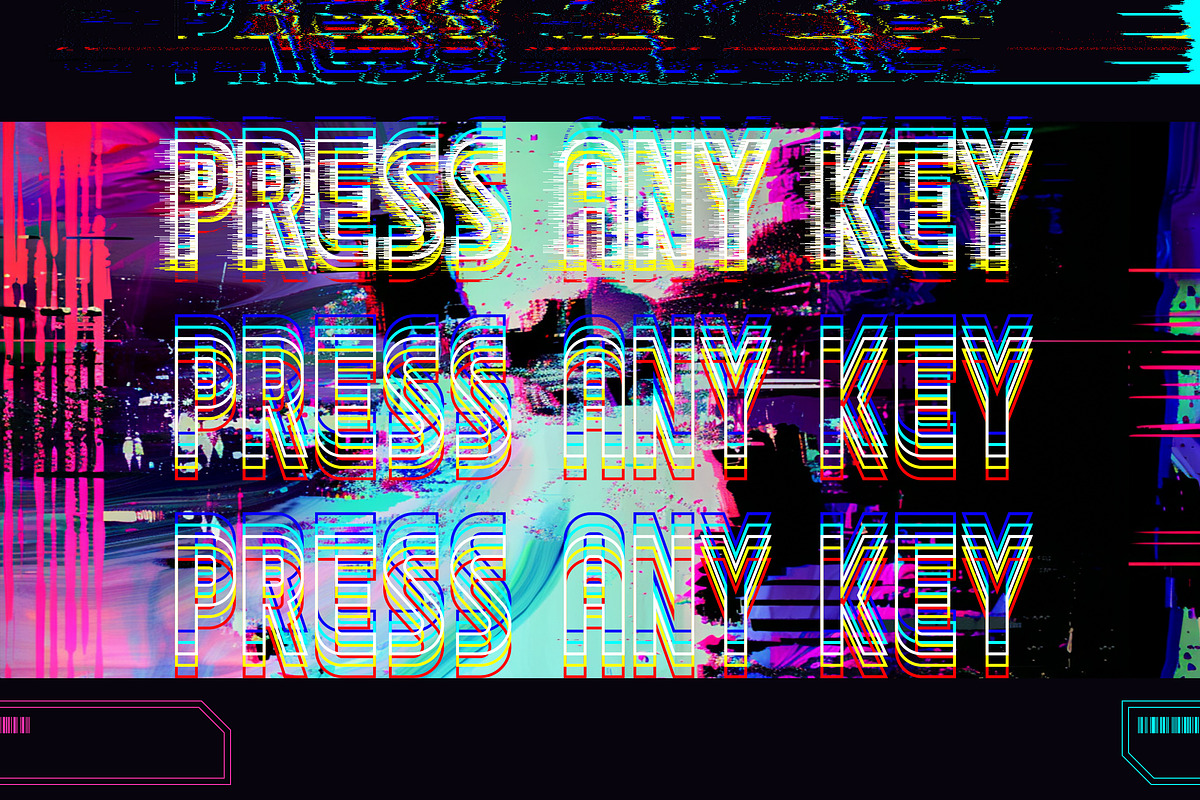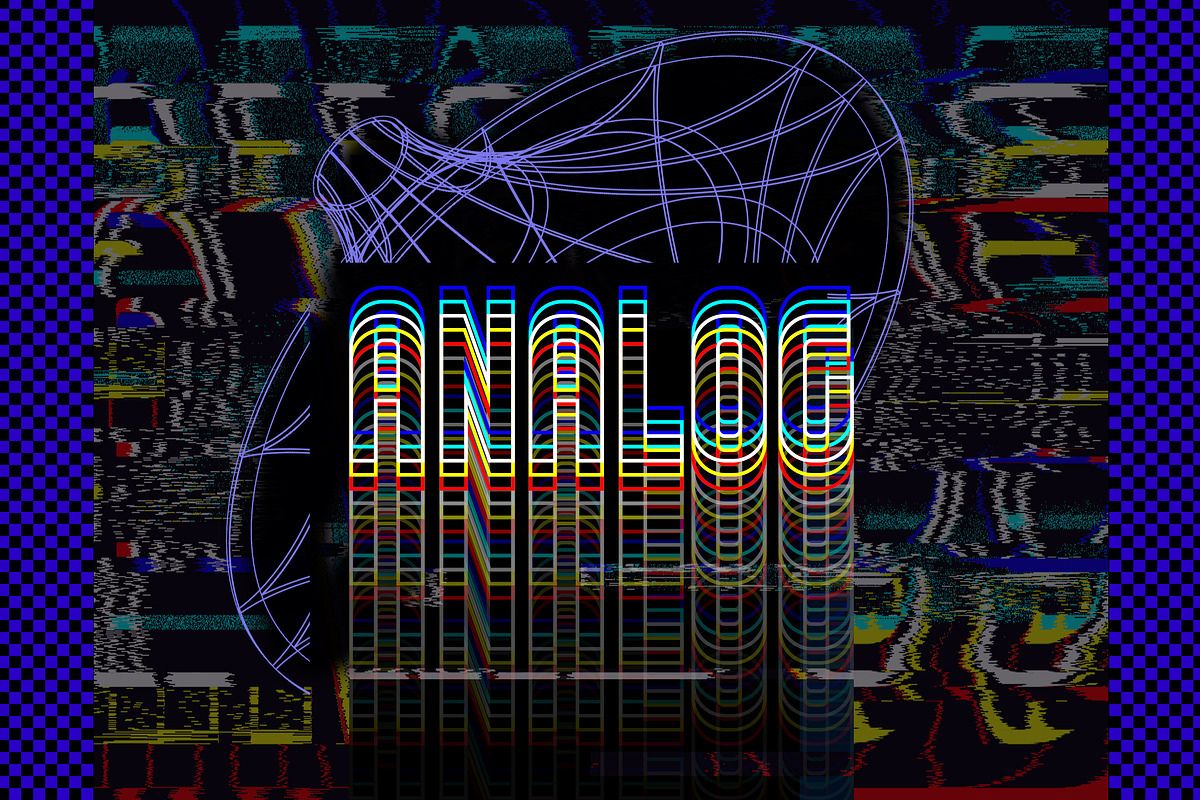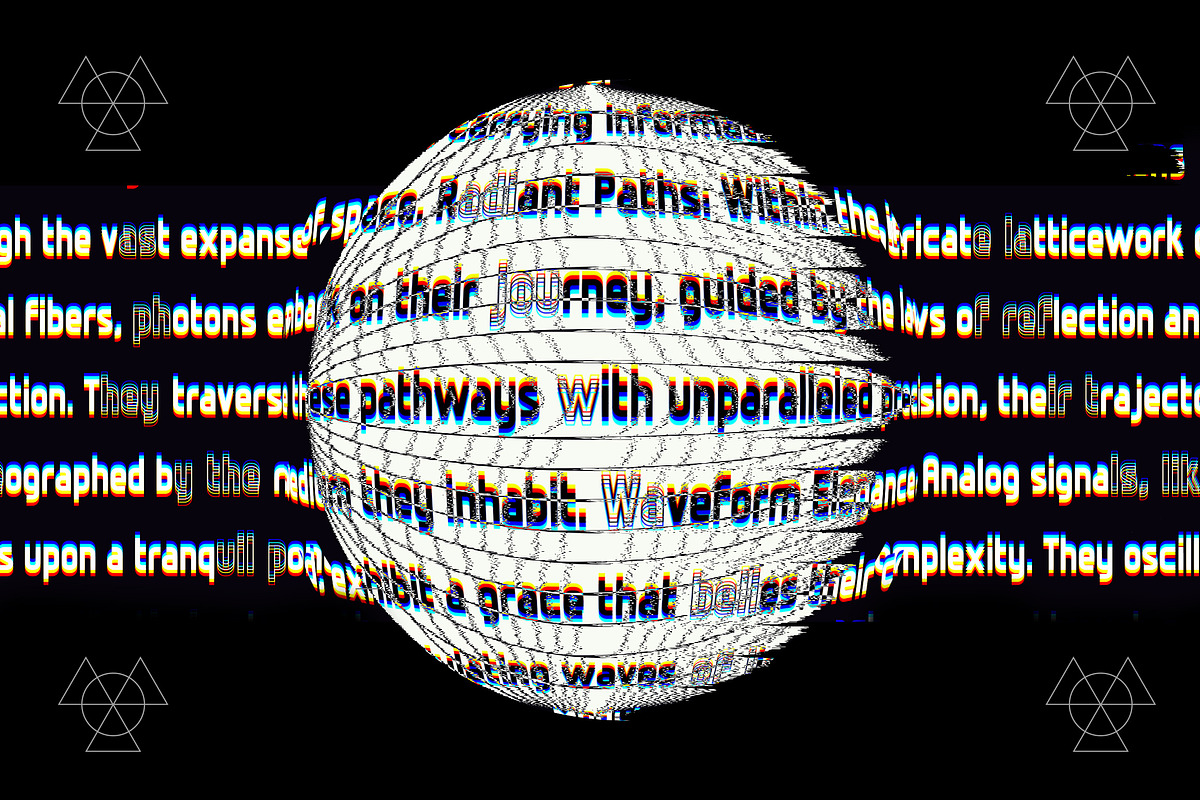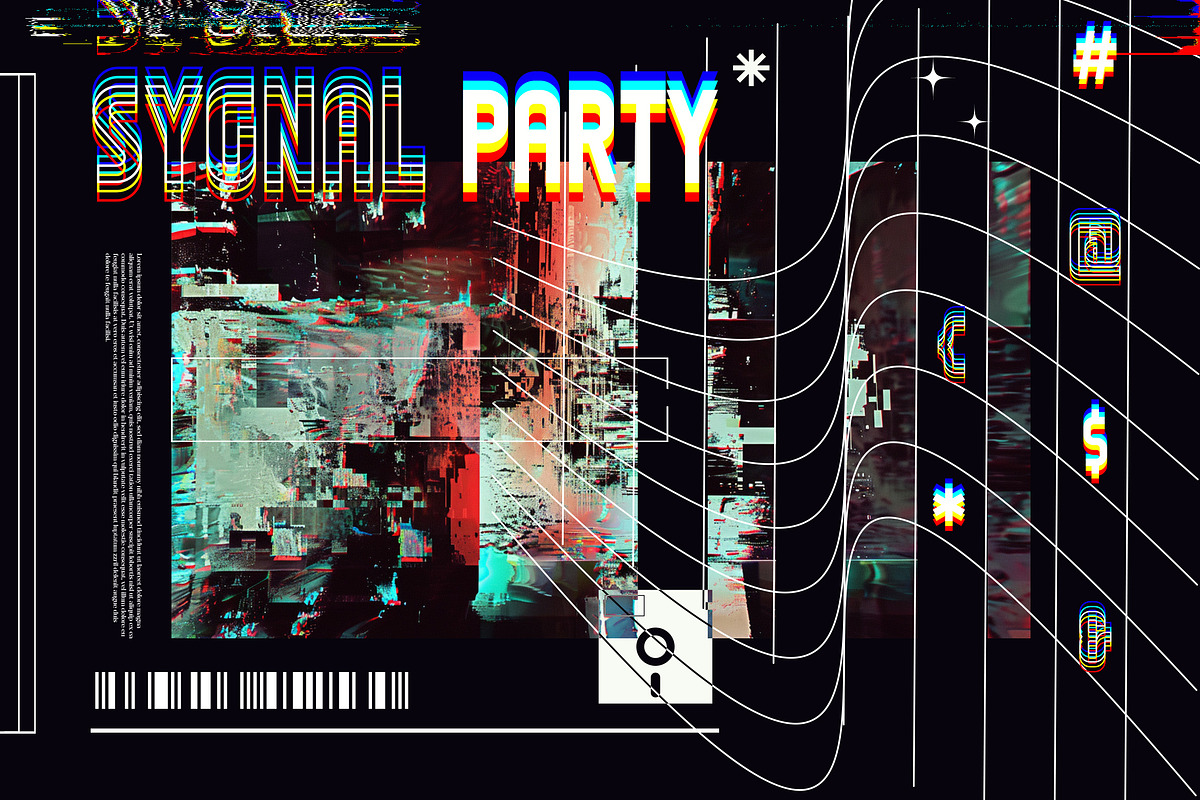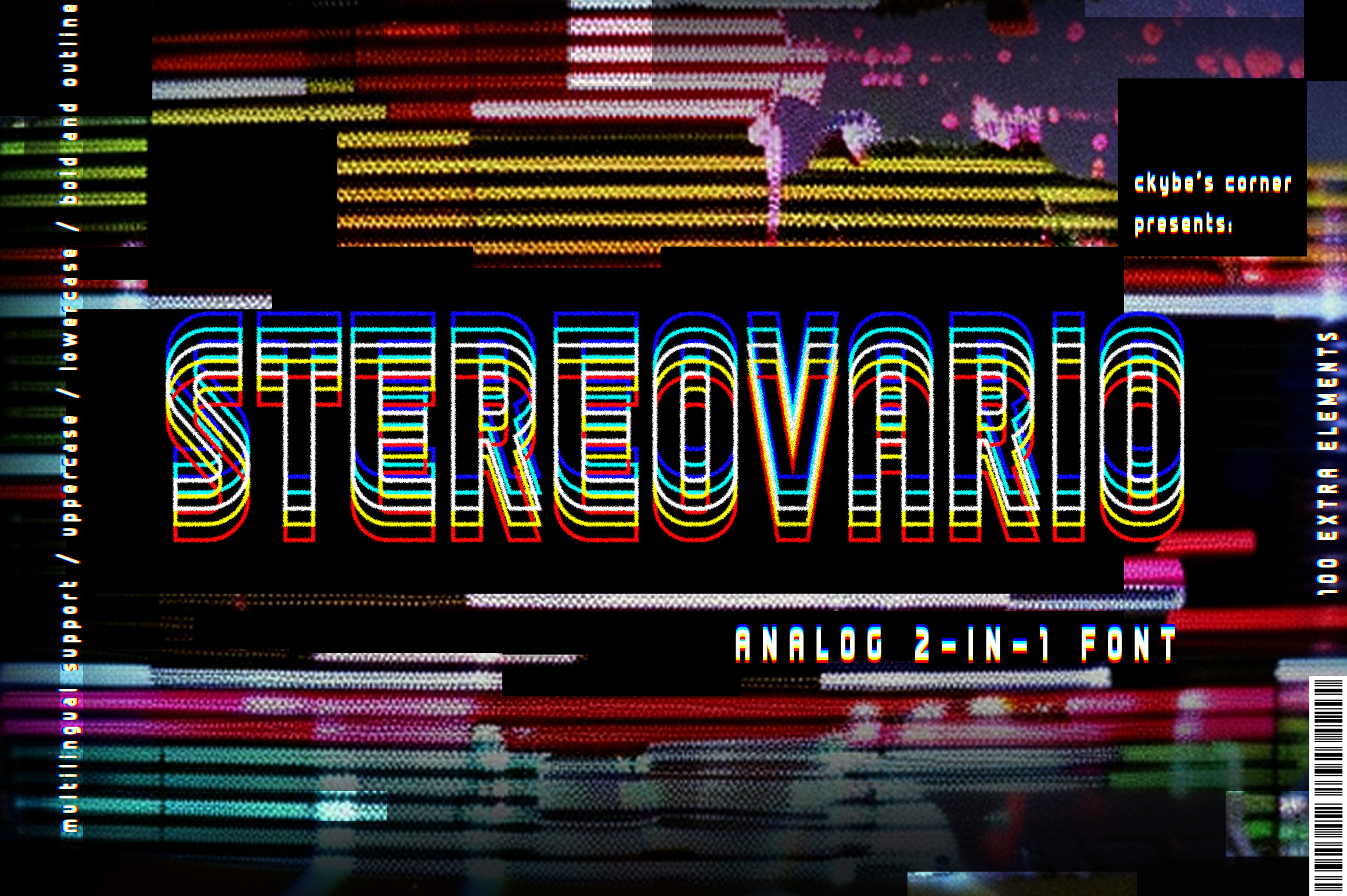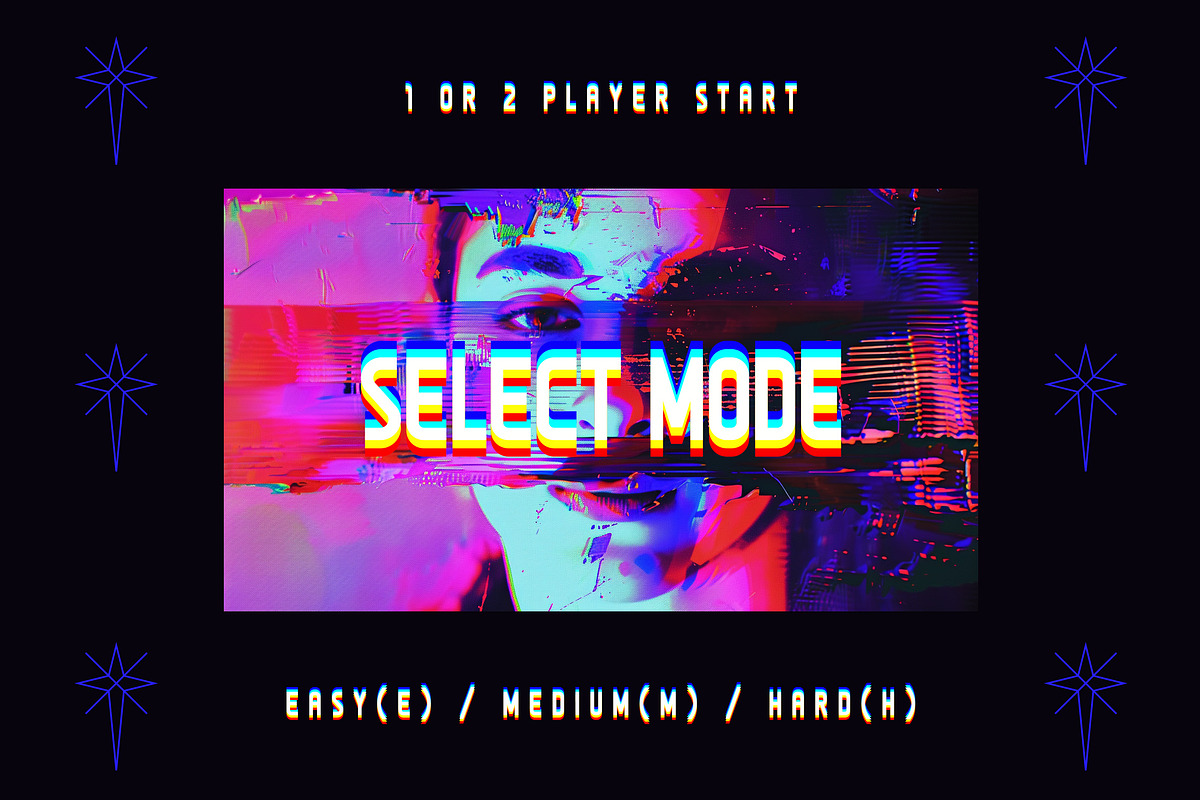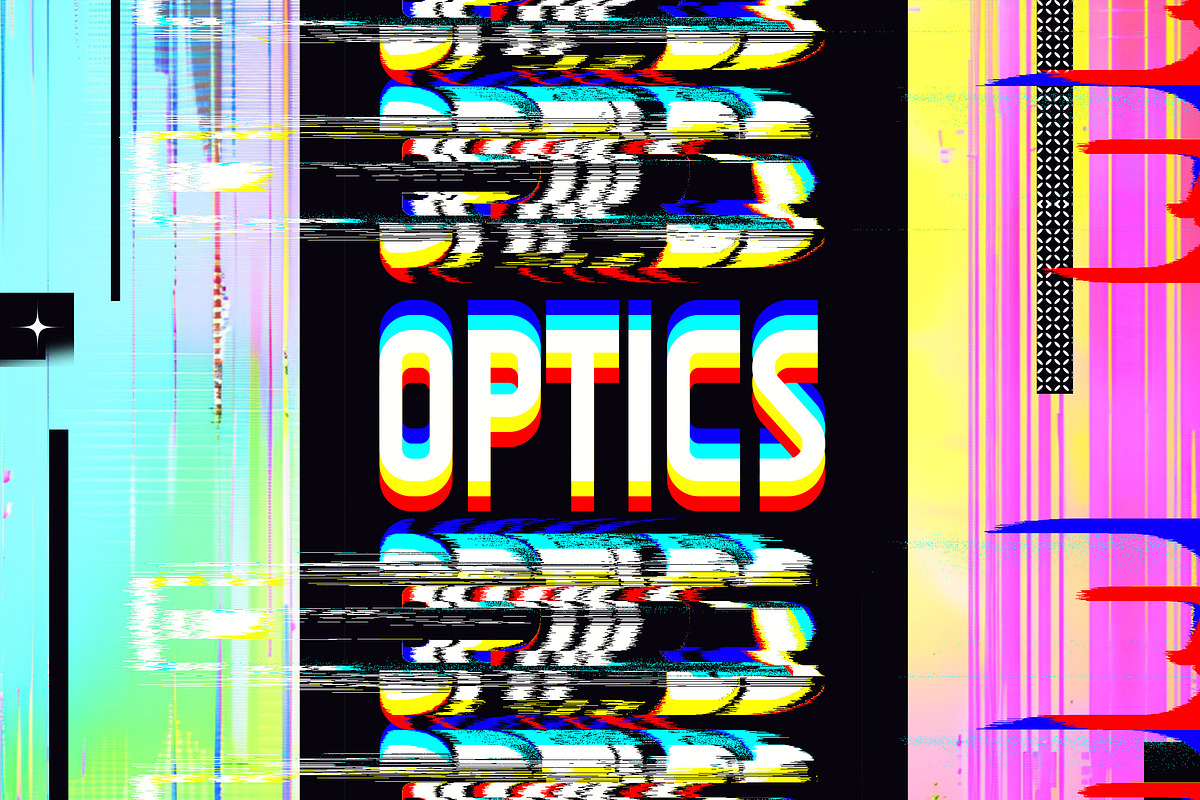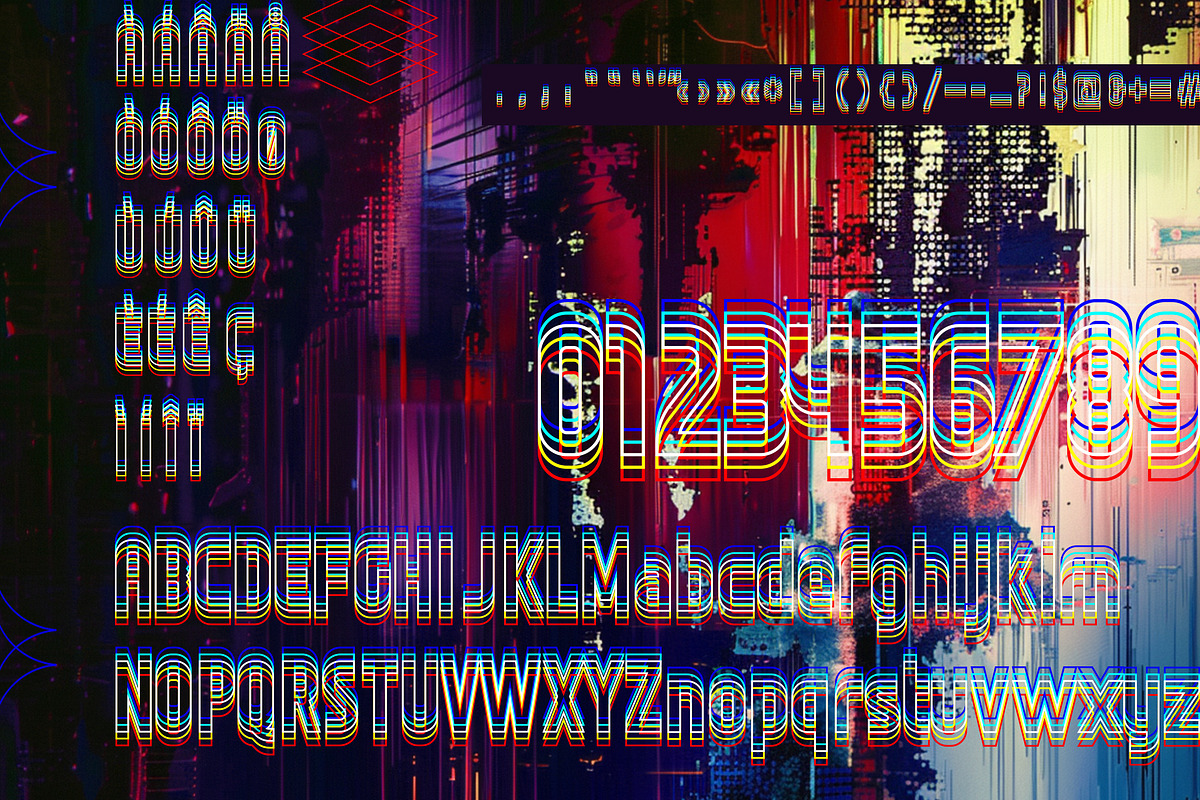
STEREOVARIO | 2-in-1 Font + Extras
Introducing Stereovario 2-in-1 font, the cutting-edge font set that brings a dynamic fusion of glitchy aesthetics and prism-inspired design elements to your creative projects. This innovative font collection is designed to captivate and inspire, offering versatility and style for a wide range of applications.
The Stereovario 2-in-1 font features two distinct styles that seamlessly blend glitch art with the mesmerizing facets of a prism. Each letterform is meticulously crafted to exude a sense of depth, dimensionality, and modernity, adding a unique flair to your designs. Whether you're creating digital artwork, branding materials, or multimedia presentations, this font set is sure to make a lasting impression.
But the creativity doesn't stop there. With the inclusion of 100 extra design vector elements, you have endless possibilities to elevate your designs to new heights. These elements, ranging from geometric shapes to abstract patterns, provide additional visual interest and flexibility, allowing you to customize and embellish your creations with ease.